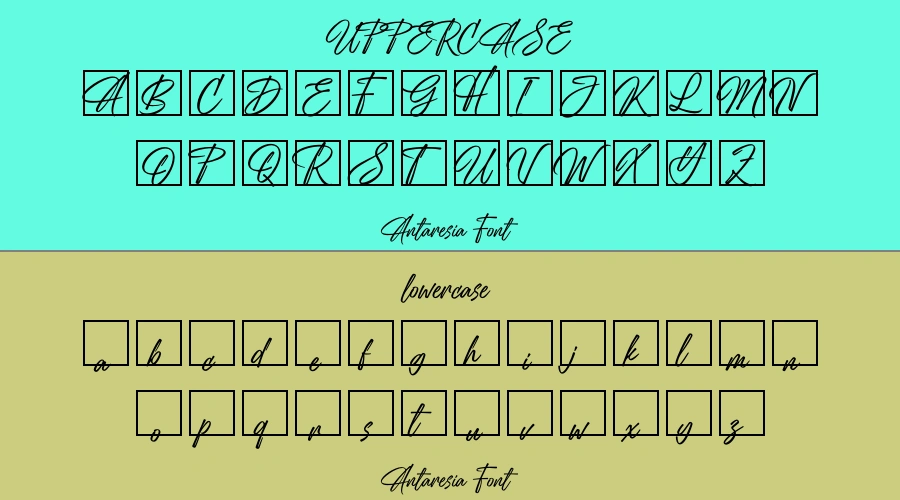
About Antaresia Font
Antaresia Font represents a sophisticated approach to type design, balancing calligraphic strokes with consumer engagement. Perfect for corporate communications, this font family showcases impressive memorability and craft excellence throughout its character set. Designers appreciate its versatility and reliability.
Designers will appreciate nuanced touches including distinctive details and traditional figures, adding sophistication to any project. These features become apparent in section headers, where multi-color registration matters most. The careful treatment of crossbar height and design heritage ensures optimal performance.